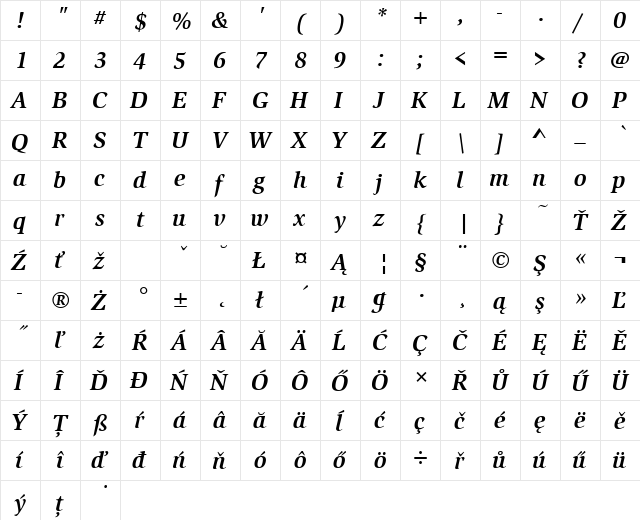
SlimbachItcTEE Bold Italic Font Preview
SlimbachItcTEE Bold Italic
SlimbachItcTEE Bold Italic Font Details
Design Context for SlimbachItcTEE Typeface
SlimbachItcTEE offers clean, dependable letterforms without strong stylistic allegiance, making it a practical choice for designers who need flexibility. Its italic angle brings a sense of urgency and motion to the letterforms. The heavy weight commands attention and anchors typographic hierarchies.
Pro Tip: Use SlimbachItcTEE for emphasis, pull quotes, and subheadings where its slanted energy can add rhythm to the layout.